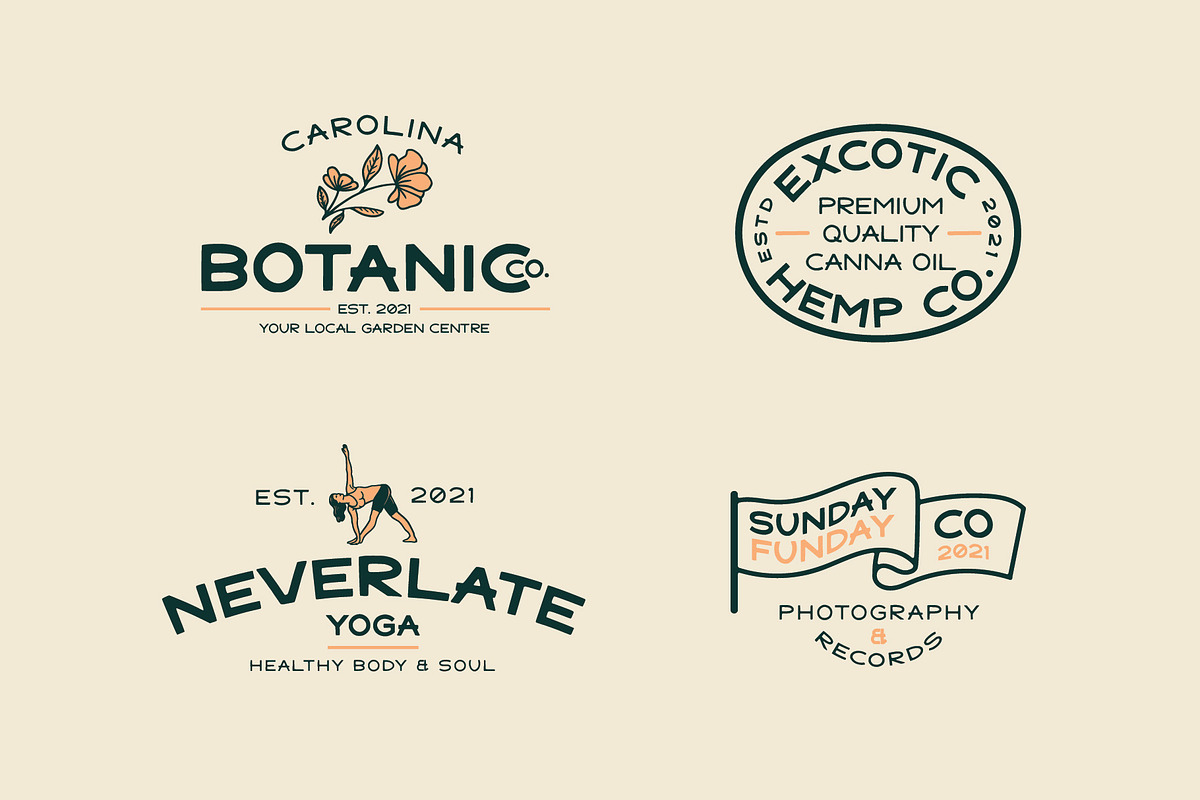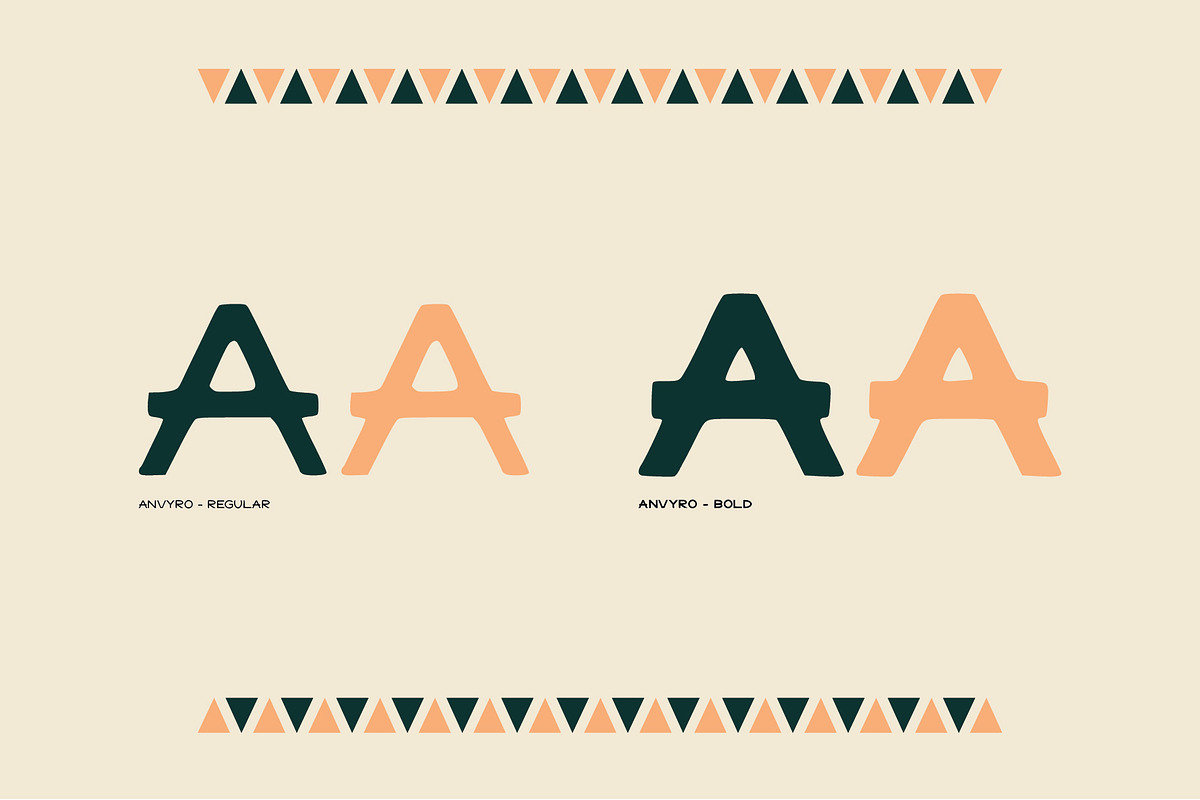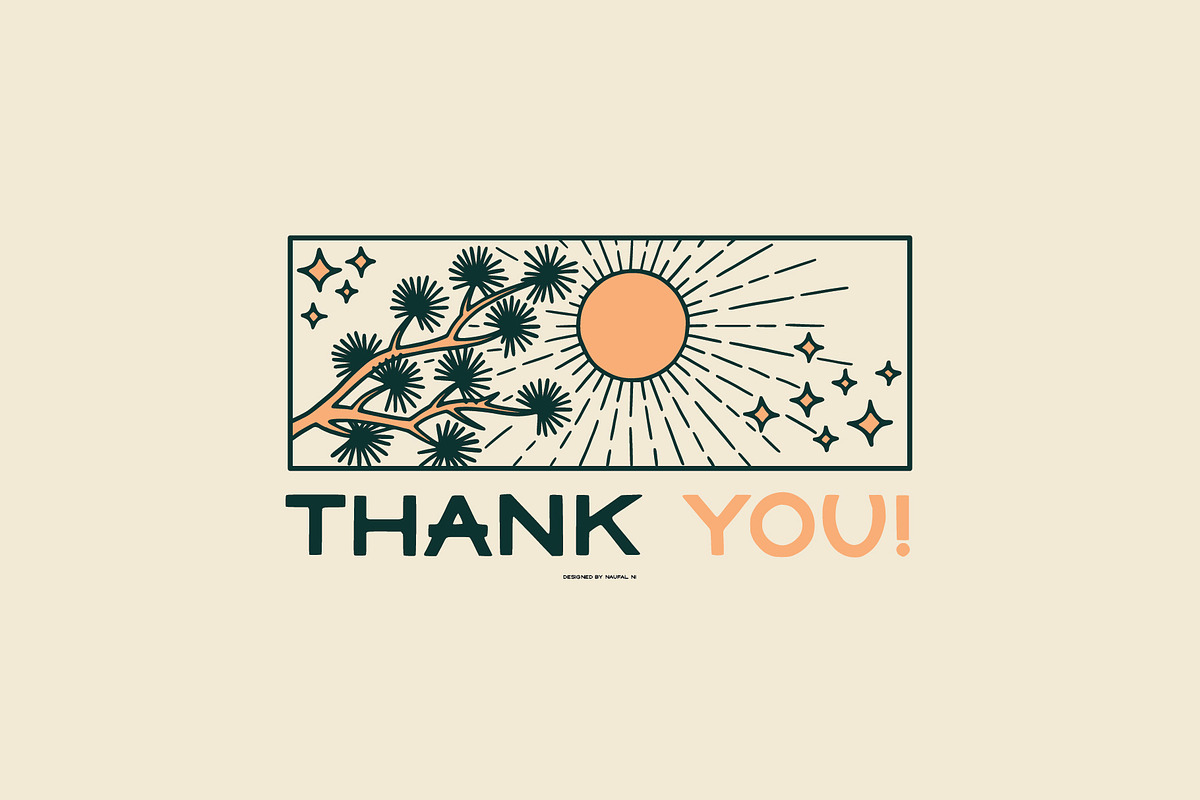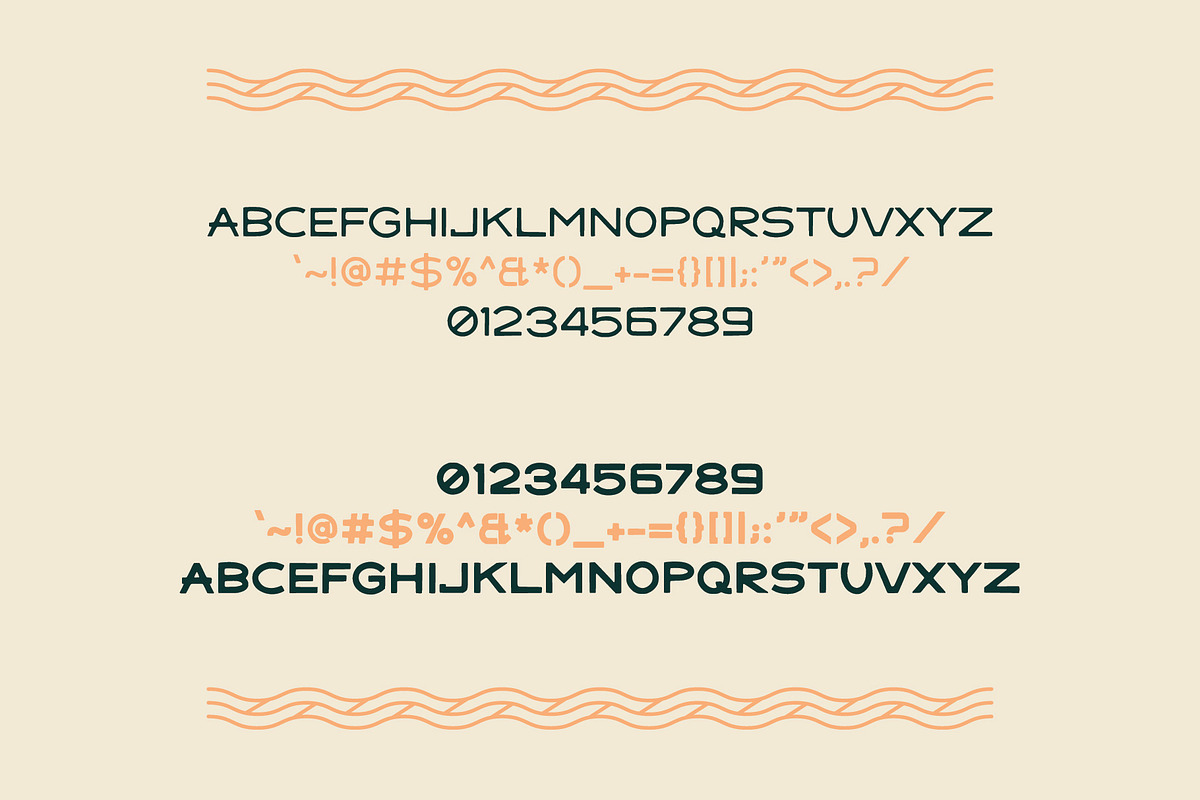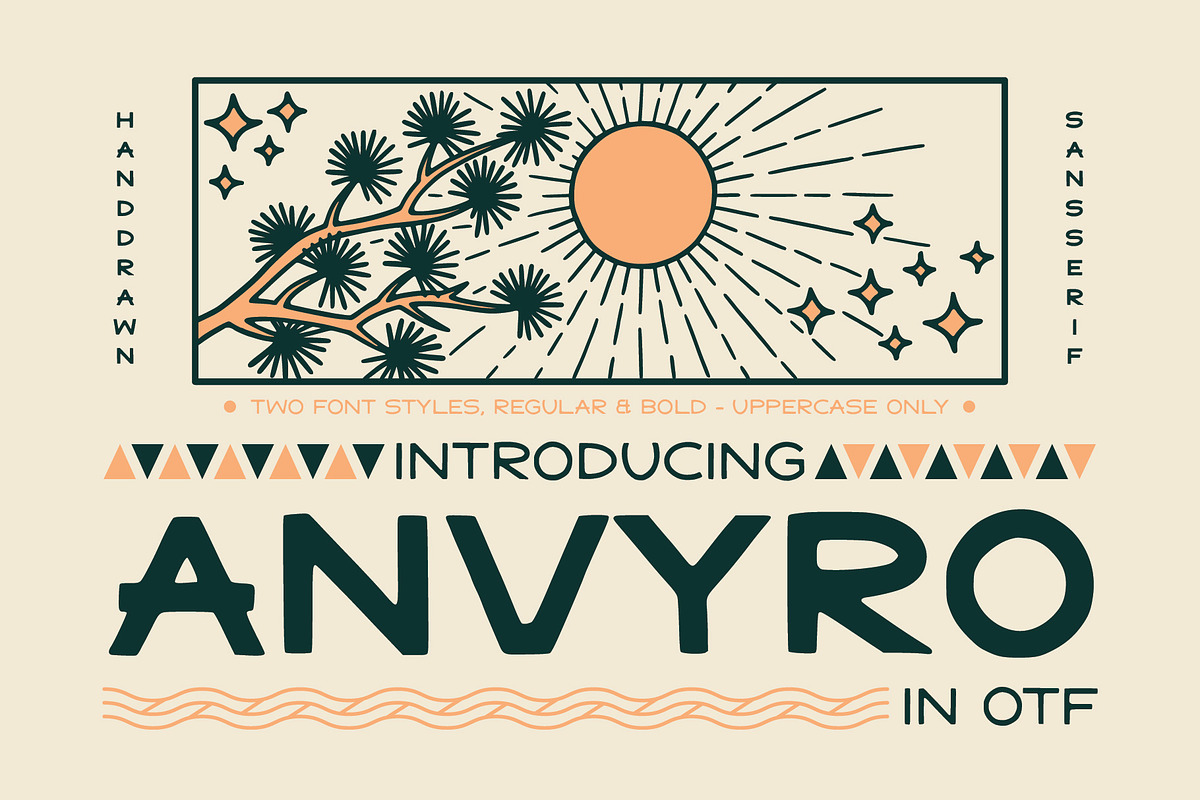
ANVYRO
Introducing ANVYRO
ANVYRO is sans serif font, combine modern look and handdrawn vintage touch. This font is simple and minimal.
ANVYRO perfect for making logo designs, badges, packaging, posters, t-shirt designs and more. This font is very minimalist and aesthetic, perfect for your product, because it is carefully crafted, modern but vintage, I hope you like it!
This font have two styles, regular and bold.